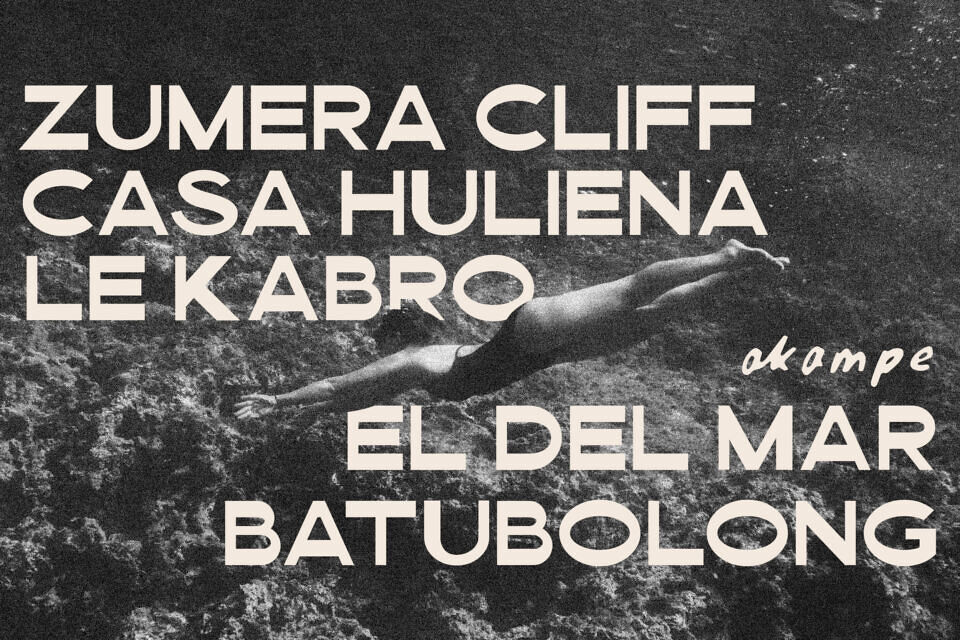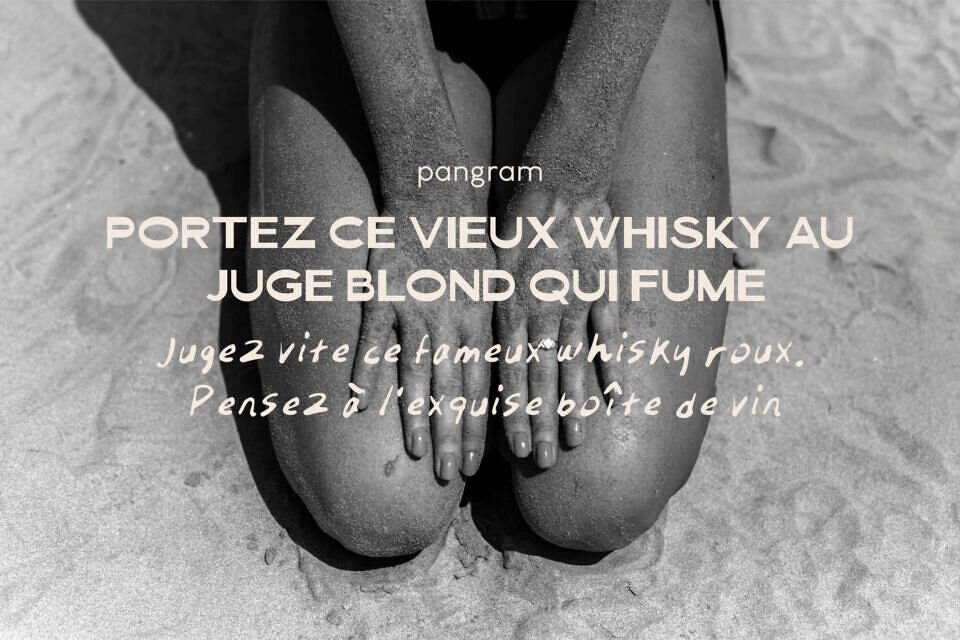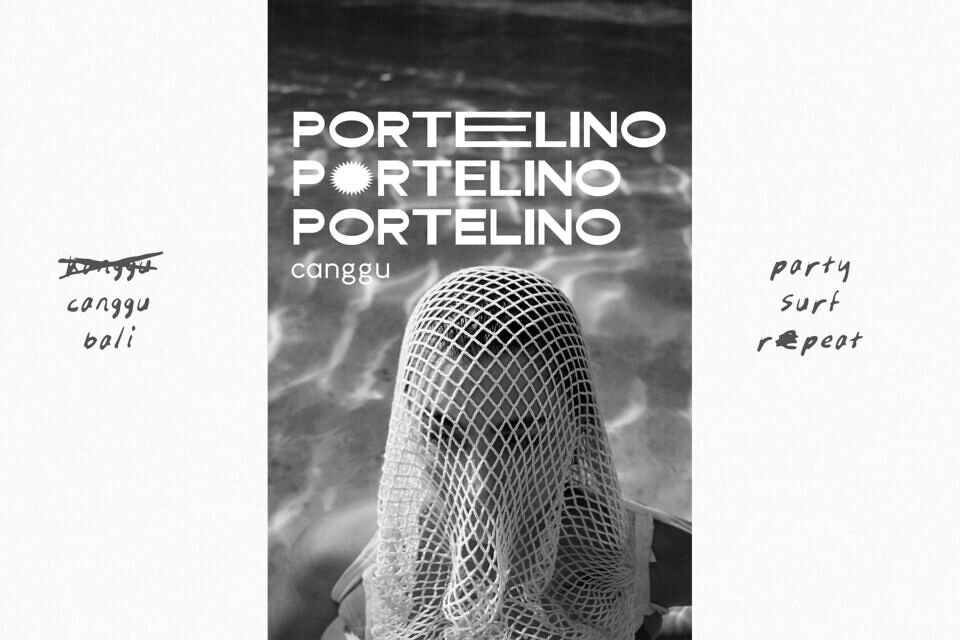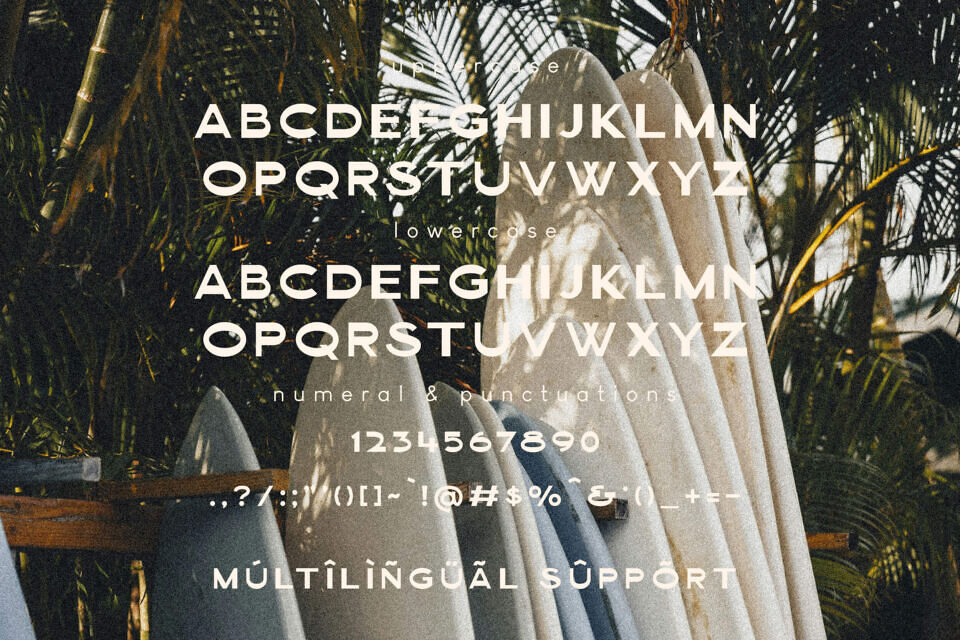
Barviera Font
Barviera is a bold and modern display sans-serif font designed to command attention with style and confidence. Its clean geometric structure, balanced by smooth curves and sharp edges, delivers a perfect harmony of elegance and strength.
Ideal for logos, posters, branding, and digital media, Barviera enhances every project with clarity and sophistication. Versatile and visually striking, it adapts effortlessly from sleek professional designs to playful creative expressions—making Barviera the perfect choice for brands seeking a confident, contemporary visual identity.